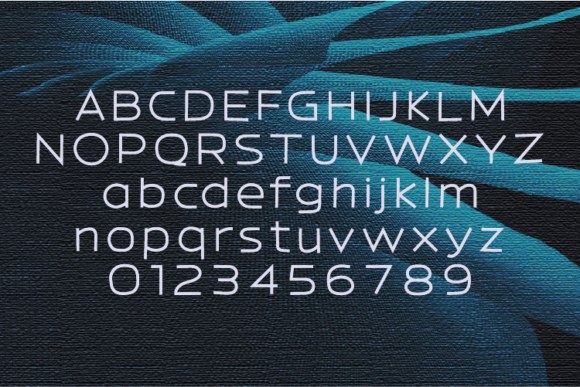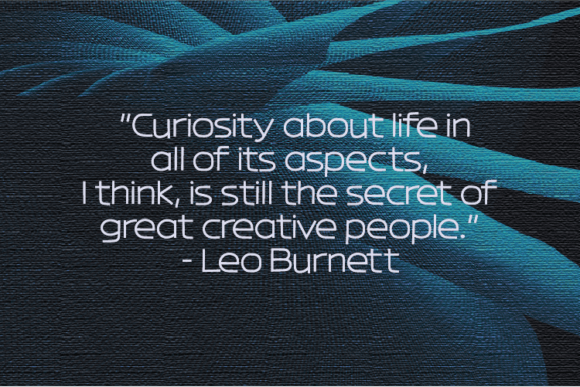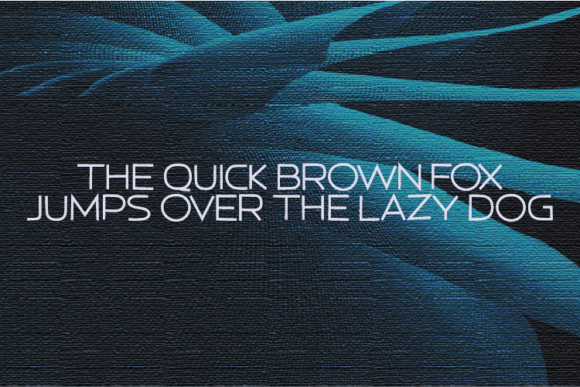
Ablaze Font: A Unique Natural Sans Serif Font for Creative Designs
In the world of typography, fonts play a crucial role in conveying messages, expressing emotions, and creating visual identities. For designers and crafters, finding the perfect font can be a daunting task. However, if you’re looking for a unique and interesting font, look no further than Ablaze Font. In this article, we’ll explore what makes Ablaze Font special, its features, and how you can use it to elevate your designs.
What is Ablaze Font?
Ablaze Font is a natural sans serif font that has been crafted without altering a single node in each character’s indentation. This distinctive approach gives Ablaze Font its unique charm and character. The font’s natural and unaltered design makes it perfect for designs that require a personal touch, such as quotes, notes, and product designs.
Key Features of Ablaze Font
• Natural Sans Serif Design: Ablaze Font boasts a clean and natural sans serif design that is easy on the eyes.
• Unique Indentation: The font’s indentation remains unchanged, giving it a distinctive and interesting look.
• Versatile: Ablaze Font is perfect for a wide range of design applications, including quotes, notes, tees, and product designs.
• Easy to Read: The font’s clear and natural design makes it easy to read, even at smaller sizes.
How to Use Ablaze Font in Your Designs
Ablaze Font is an excellent choice for designers and crafters looking to add a personal touch to their work. Here are some ideas on how to use Ablaze Font in your designs:
Quotes and Notes
Ablaze Font is perfect for creating inspirational quotes, notes, and posters. Its natural and unique design makes it stand out from other fonts, adding a touch of personality to your work.
T-Shirt and Merchandise Design
If you’re a crafty person who loves designing t-shirts and merchandise, Ablaze Font is an excellent choice. Its clear and easy-to-read design makes it perfect for creating eye-catching designs that will appeal to a wide audience.
Product Design
Ablaze Font can also be used in product design, such as packaging, labels, and branding materials. Its unique and natural design will help your products stand out on store shelves.
Why Choose Ablaze Font?
With so many fonts available, why choose Ablaze Font? Here are a few reasons:
• Unique Design: Ablaze Font’s natural and unaltered design makes it a one-of-a-kind font that will add a touch of personality to your work.
• Versatility: The font is perfect for a wide range of design applications, from quotes and notes to product designs.
• Easy to Read: Ablaze Font is easy to read, even at smaller sizes, making it perfect for designs that require a lot of text.
In conclusion, Ablaze Font is a unique and interesting natural sans serif font that is perfect for designers and crafters looking to add a personal touch to their work. Its natural and unaltered design makes it stand out from other fonts, and its versatility makes it suitable for a wide range of design applications. Whether you’re creating quotes, notes, t-shirts, or product designs, Ablaze Font is an excellent choice.